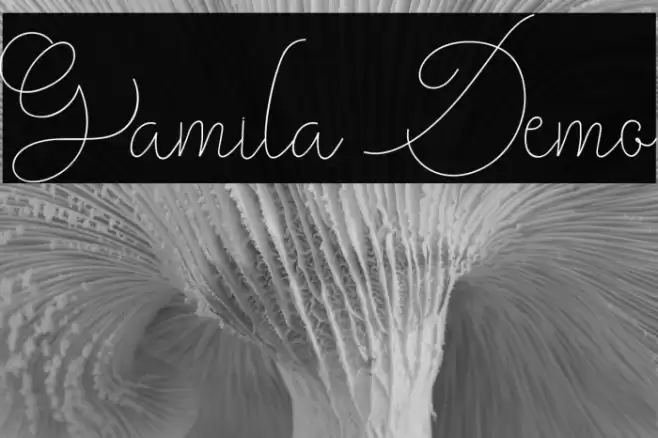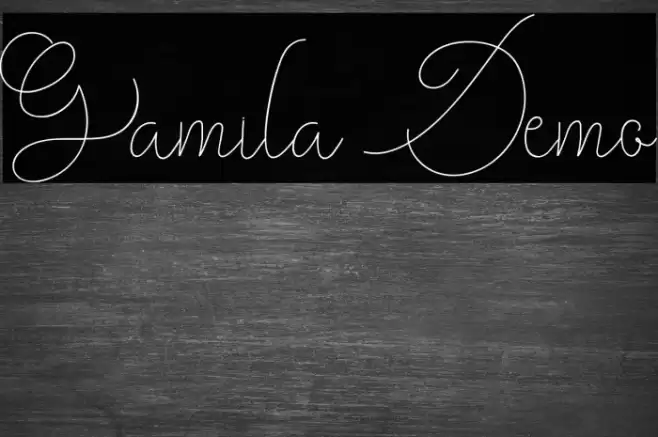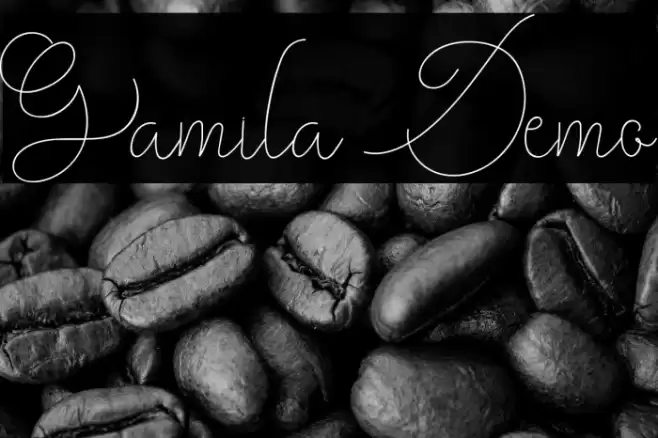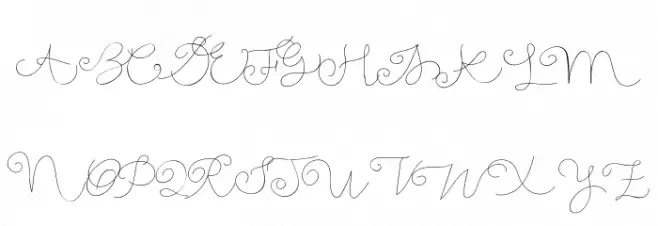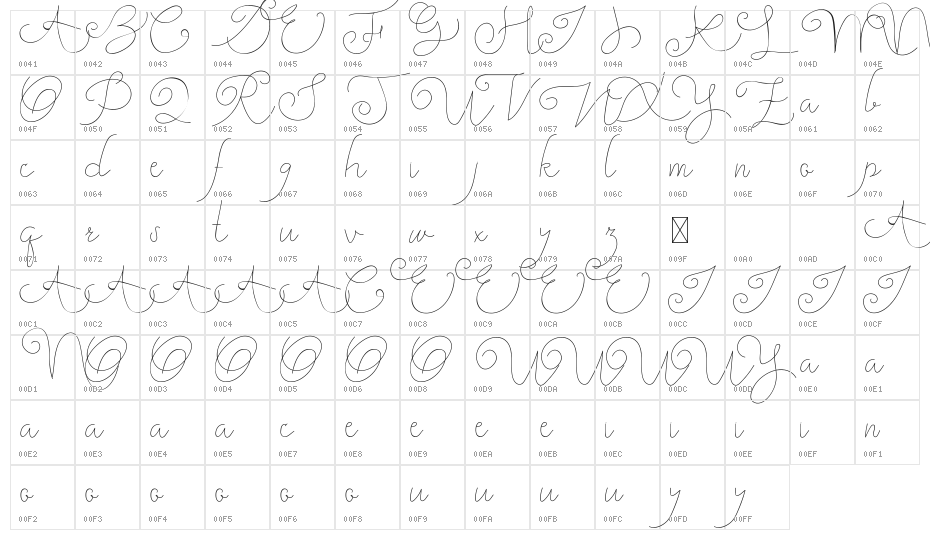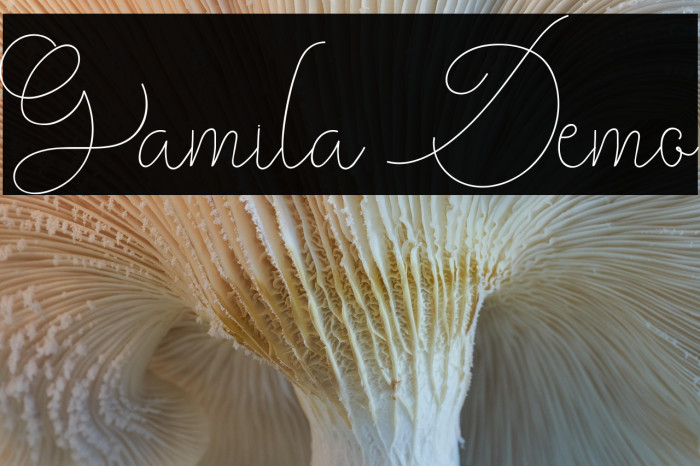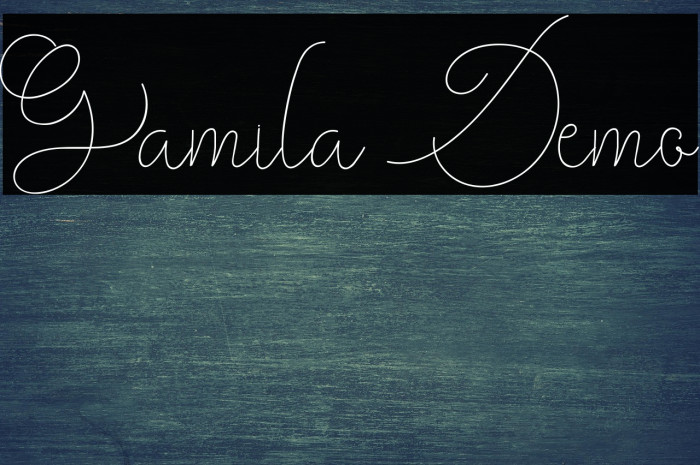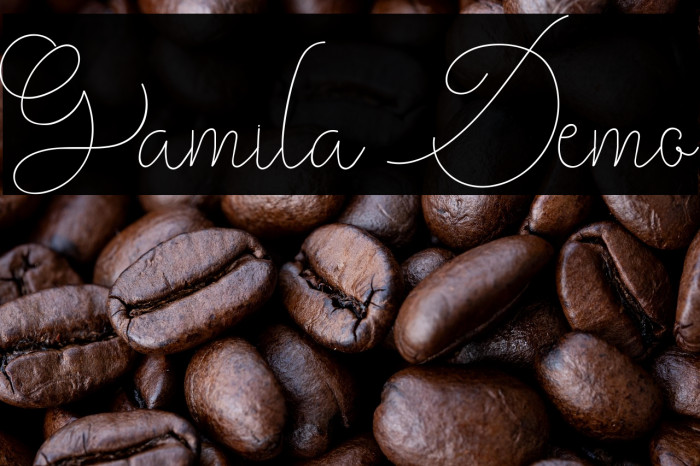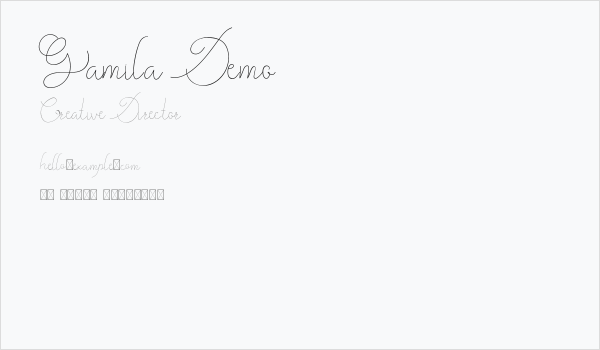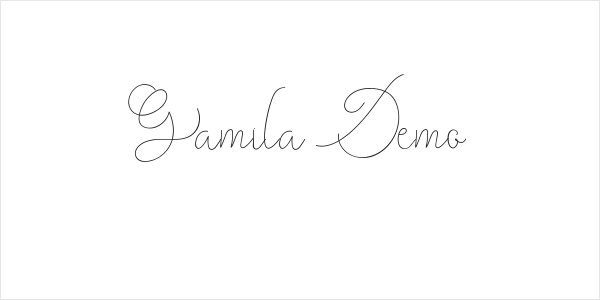
Gamila Demo Font
Gamila Demo Description
This font features an elegant and flowing script style, characterized by its intricate loops and swirls. The uppercase letters are particularly ornate, with each character exhibiting unique flourishes that add a touch of sophistication. The lowercase letters maintain a consistent fluidity, with long ascenders and descenders that enhance the font's graceful appearance. The numerals and special characters are designed to complement the overall aesthetic, ensuring a cohesive look across all text elements. This font's delicate lines and artistic flair make it ideal for projects that require a touch of elegance and creativity.
An elegant script font with intricate loops and swirls, perfect for sophisticated designs from Regular fonts.